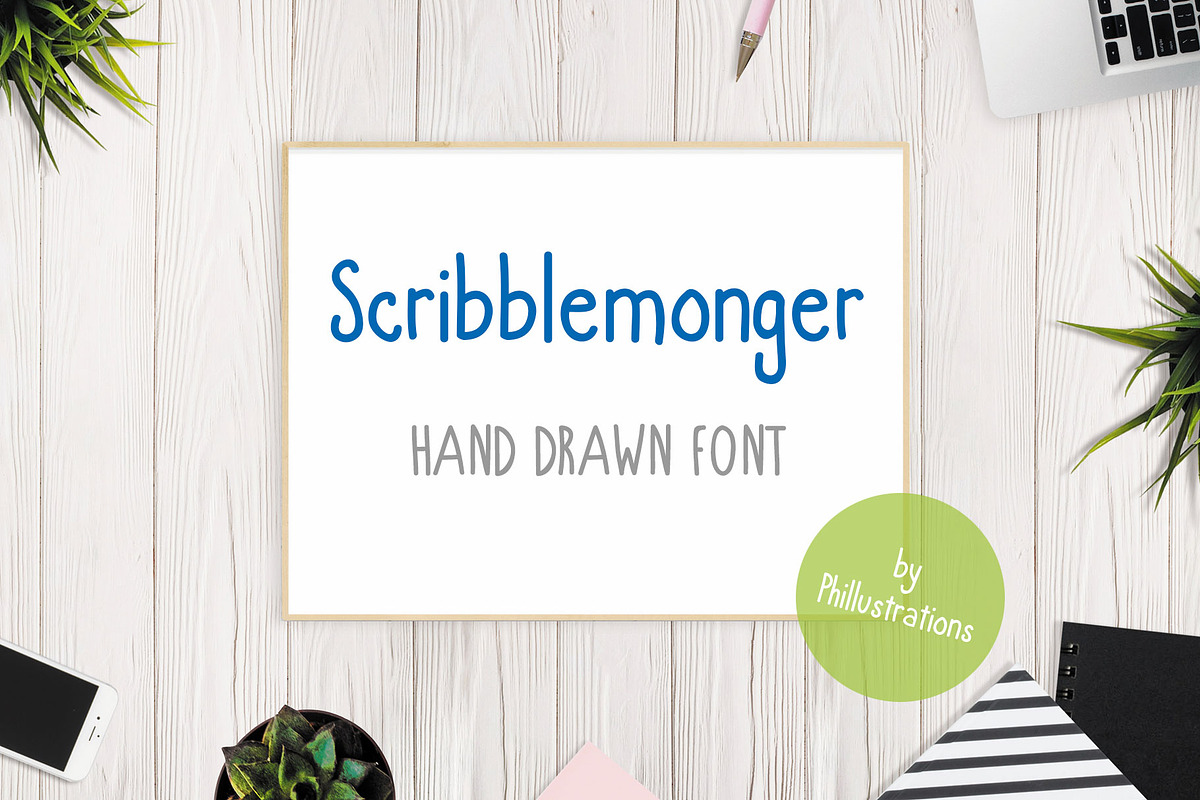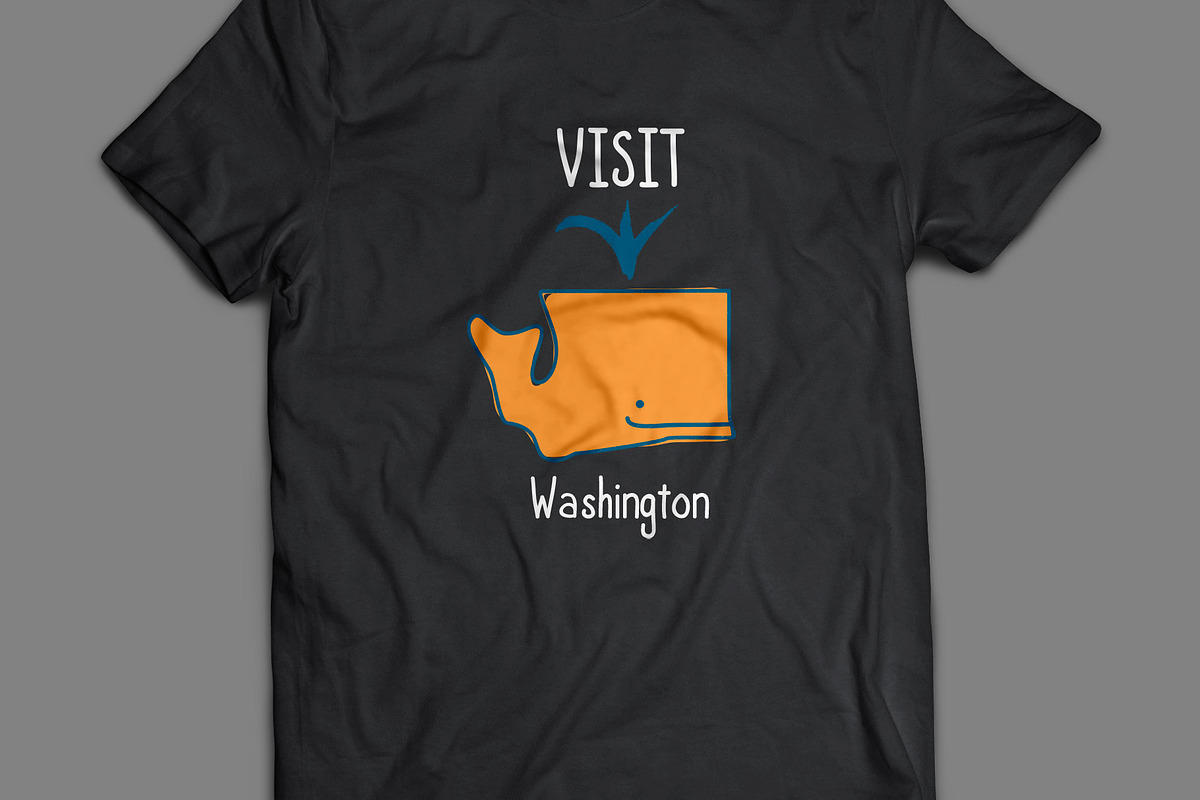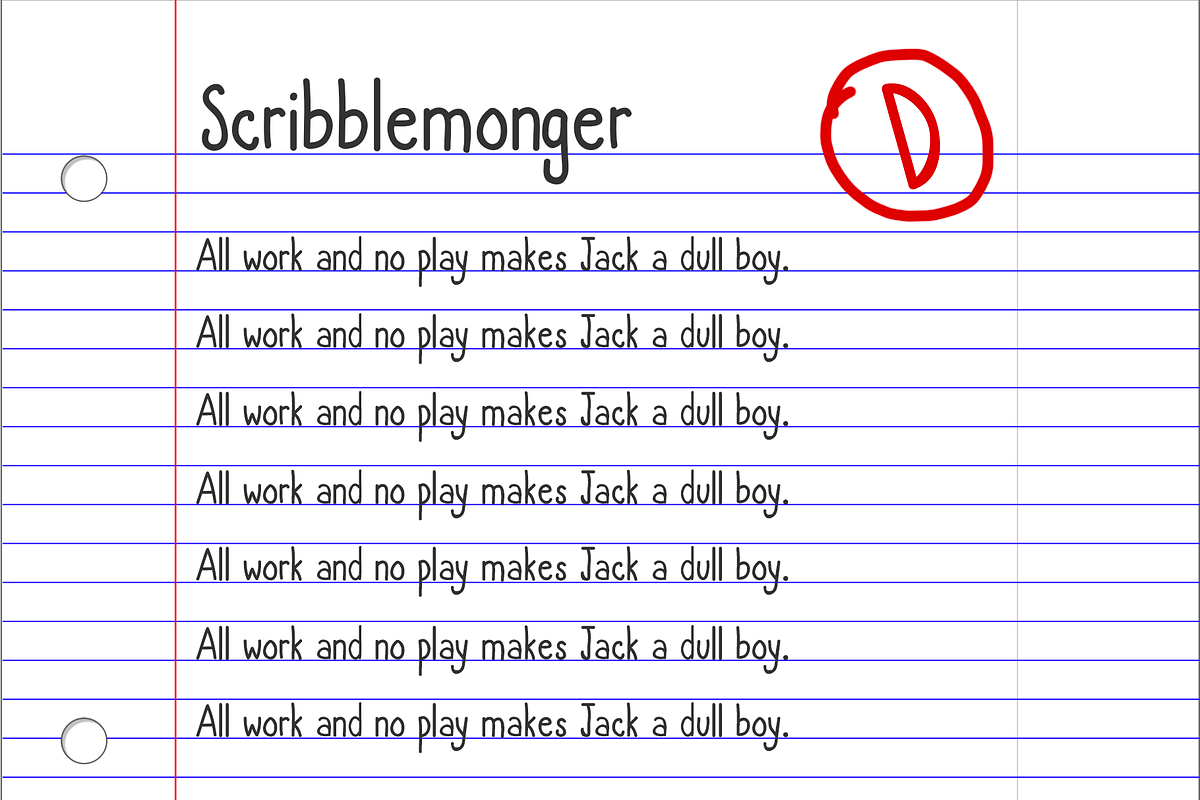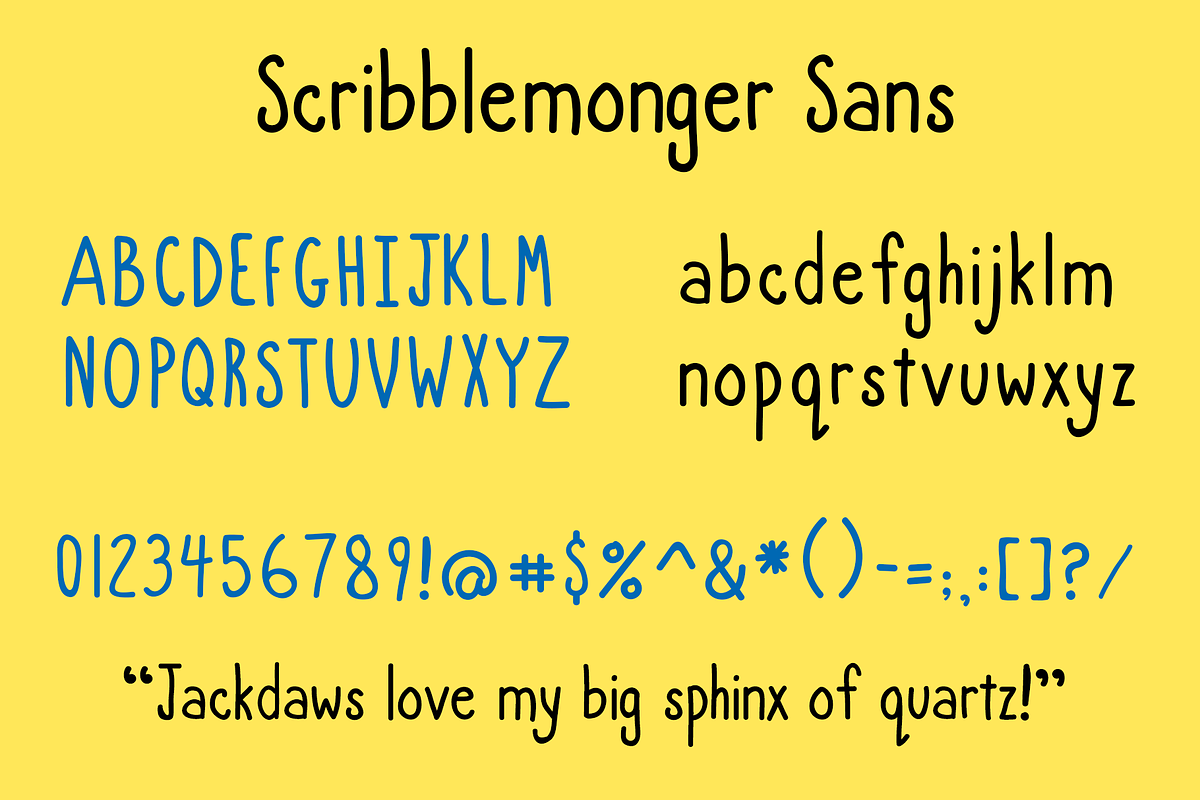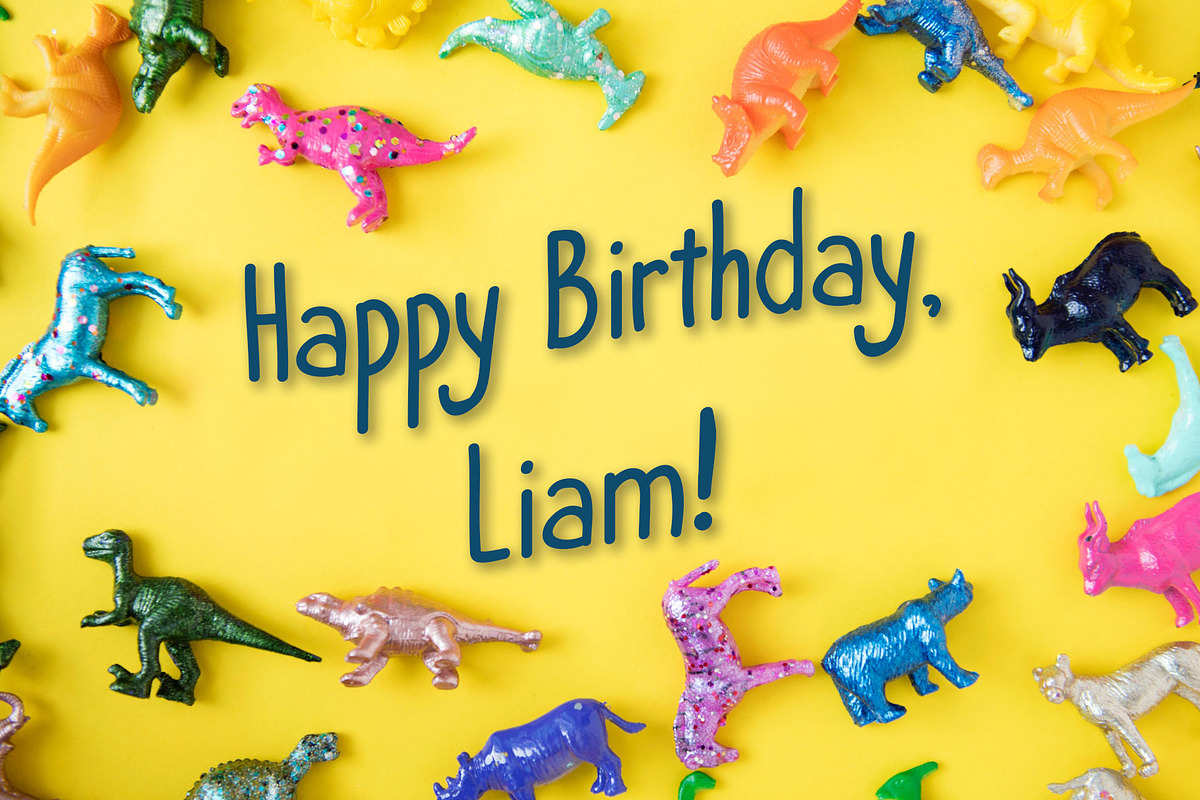
Scribblemonger Sans
Scribblemonger is a loose, whimsical hand-drawn font. The natural, simple shapes are perfect for both display type and body text. Add some casual type to any design with this blob brush font designed by Phil Scroggs. See more work on Instagram @phillustrations